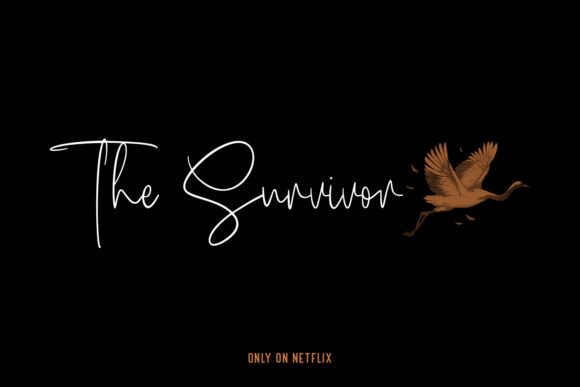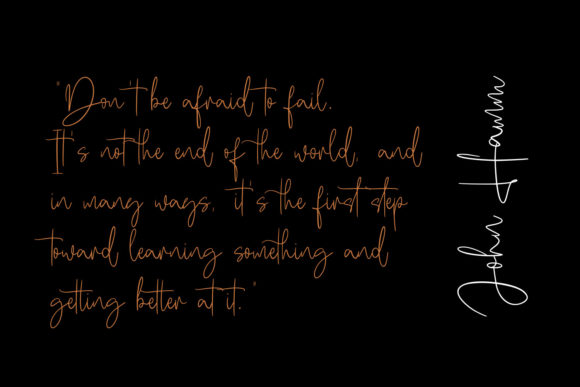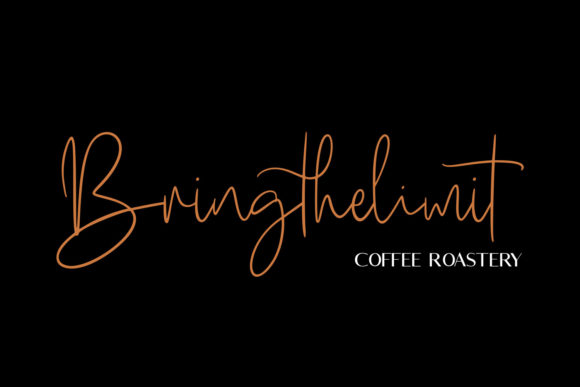
About Mc Tellyus Font
Mc Tellyus is a thin lettered and delicate handwritten font. Dainty and stylish, this font will be ideal for writing wedding invitations, cards or any other design that may need a romantic, personalized touch!